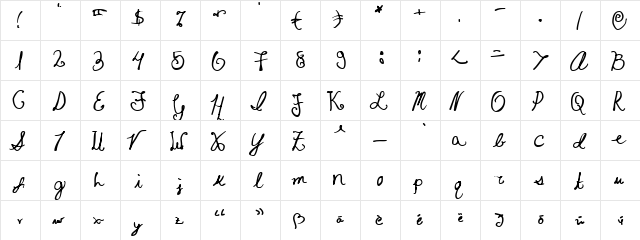
Liesanda Script Medium
Design Context for Liesanda Script Typeface
Liesanda Script brings a calligraphic fluidity to the page — its connecting strokes and expressive curves give it an unmistakably human quality.